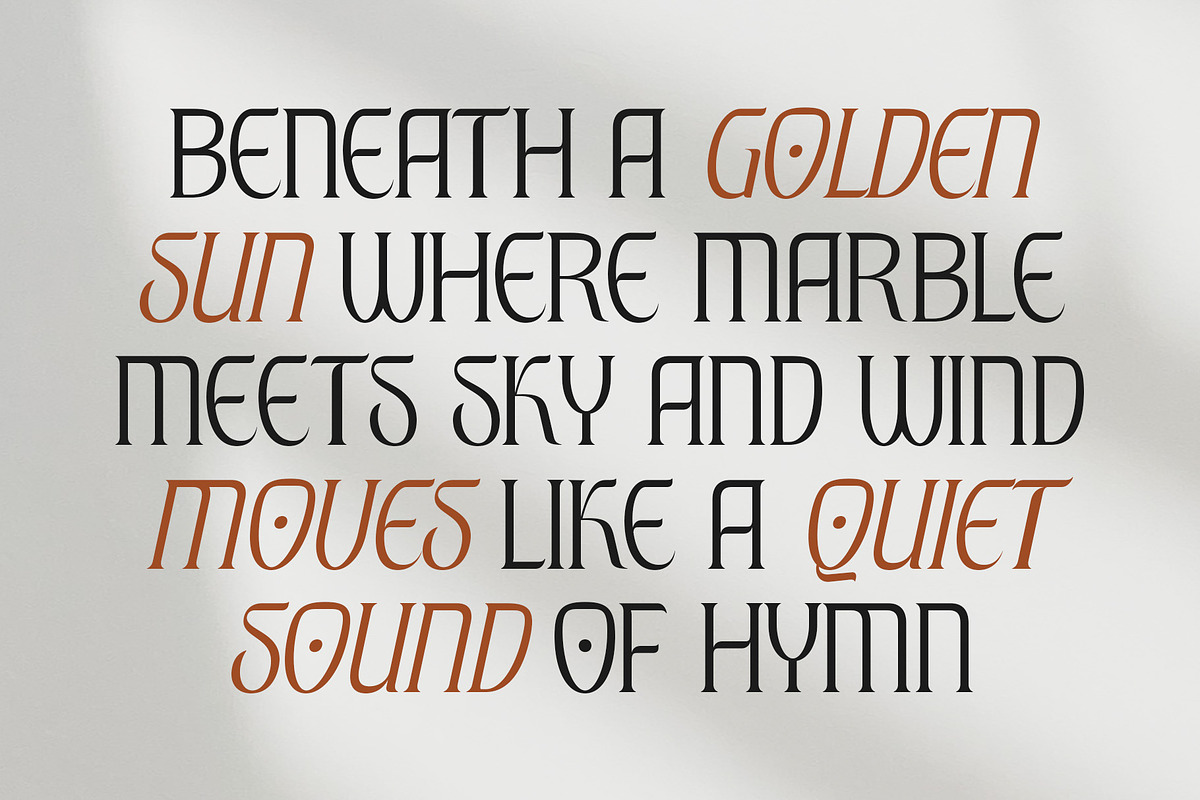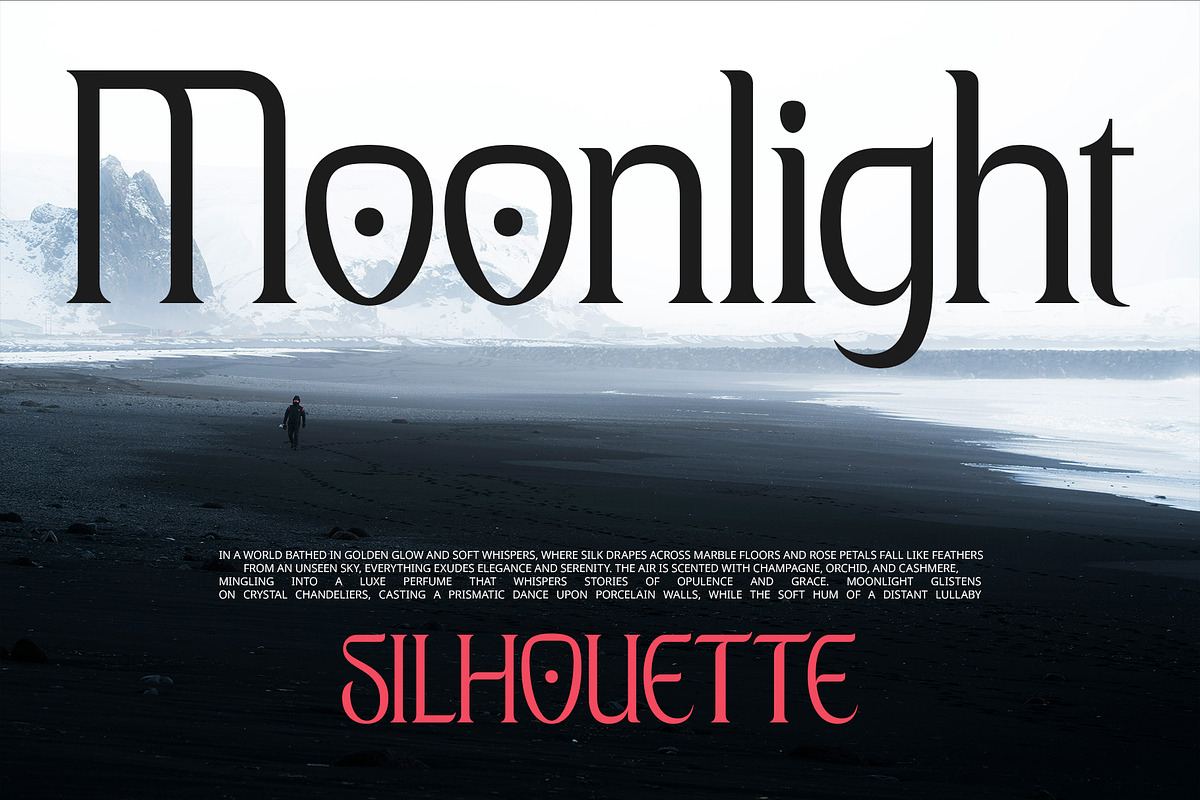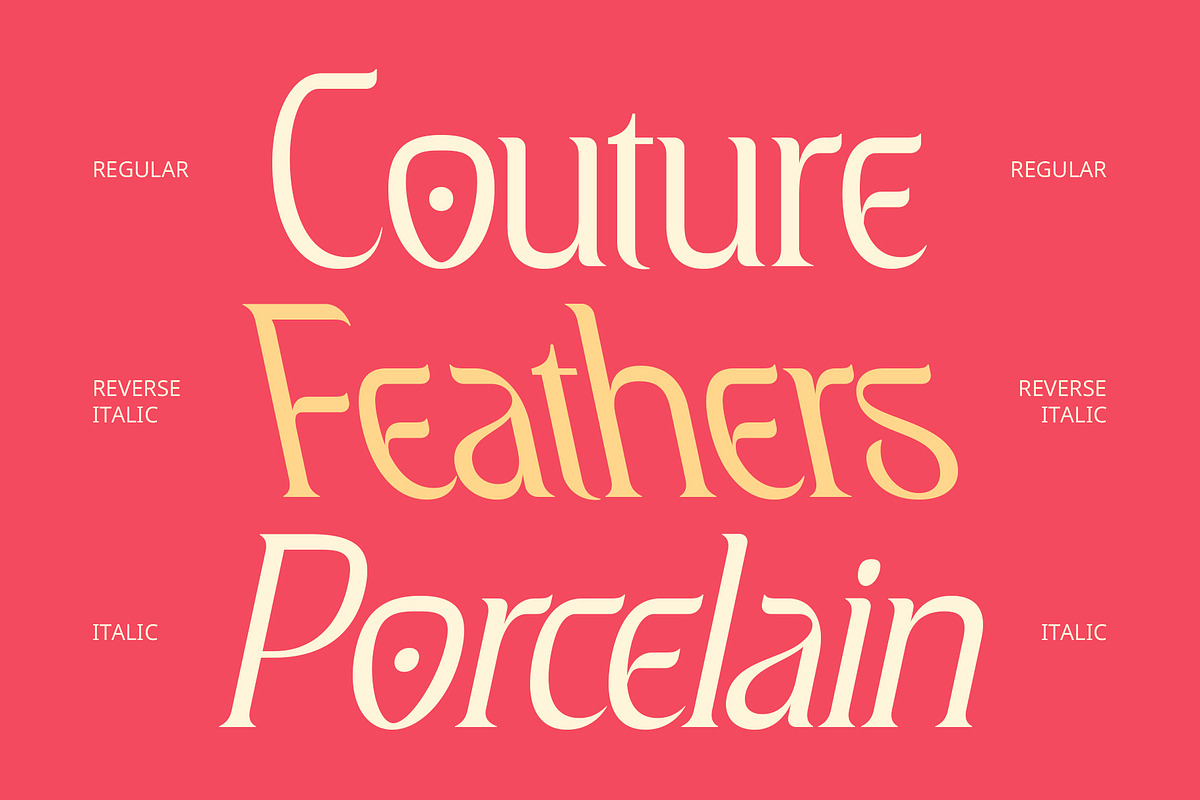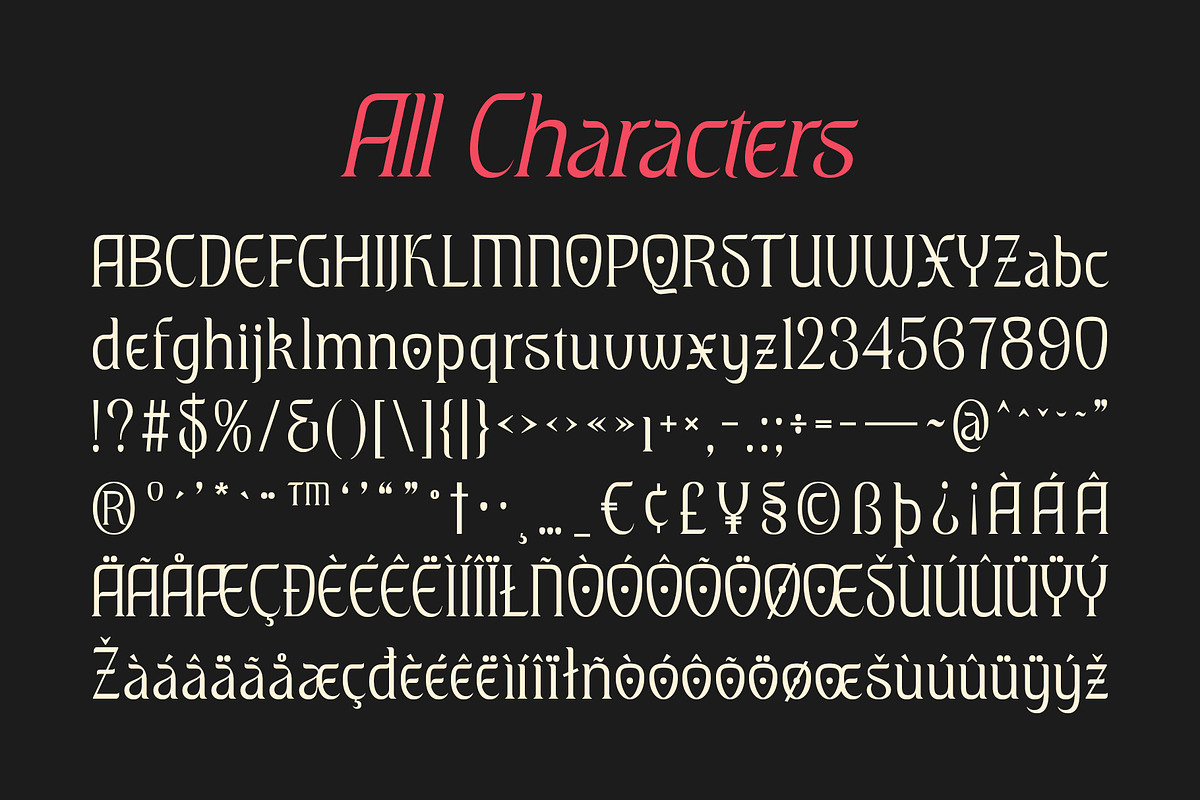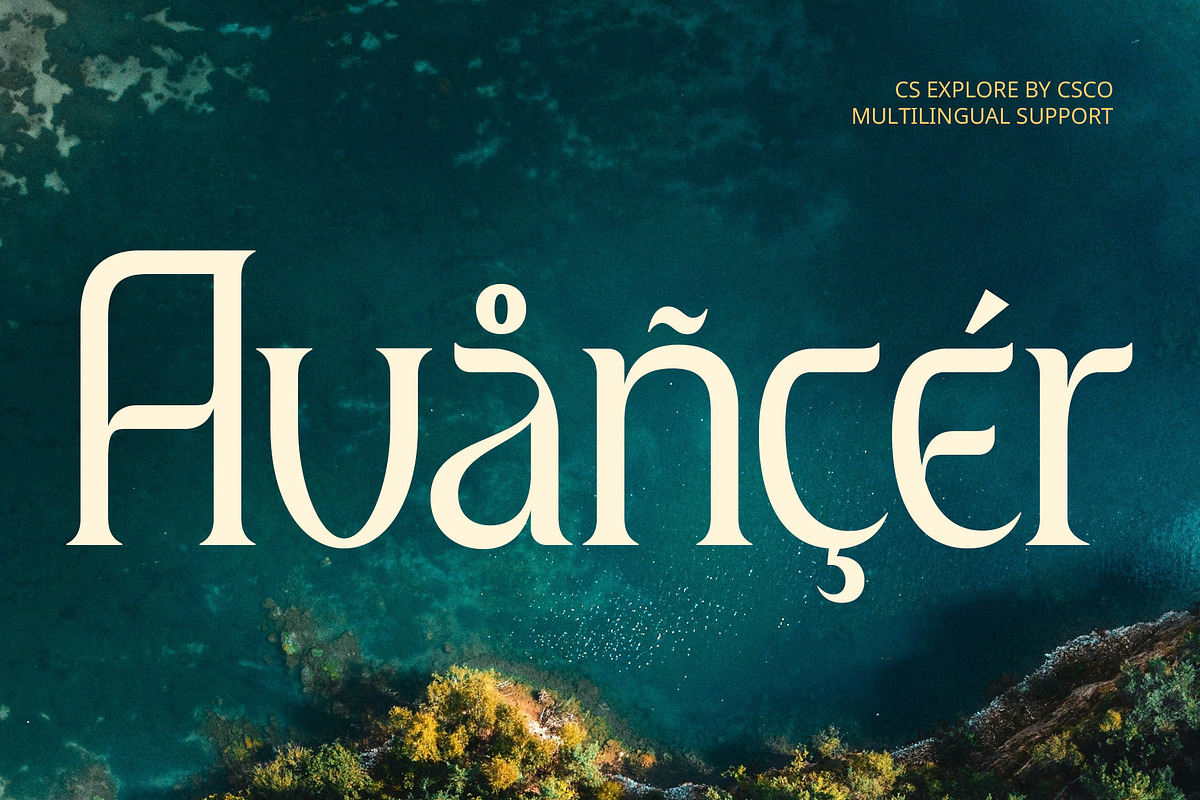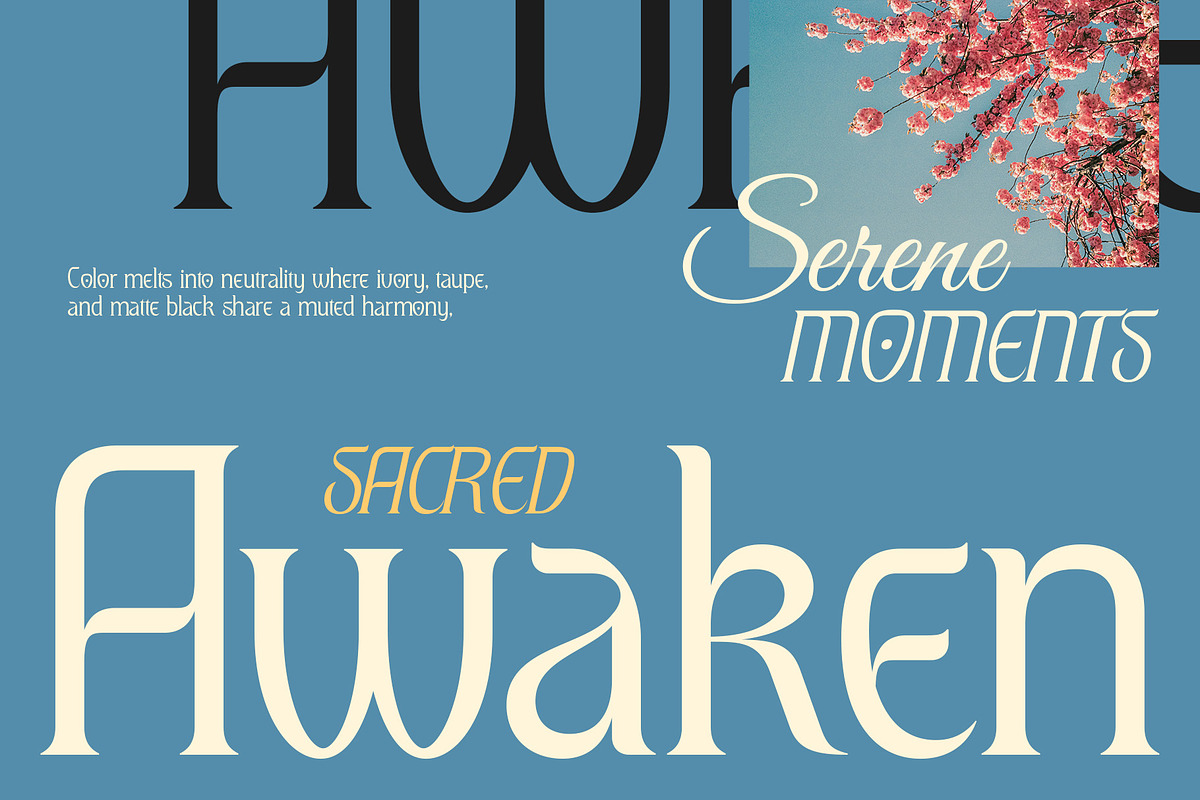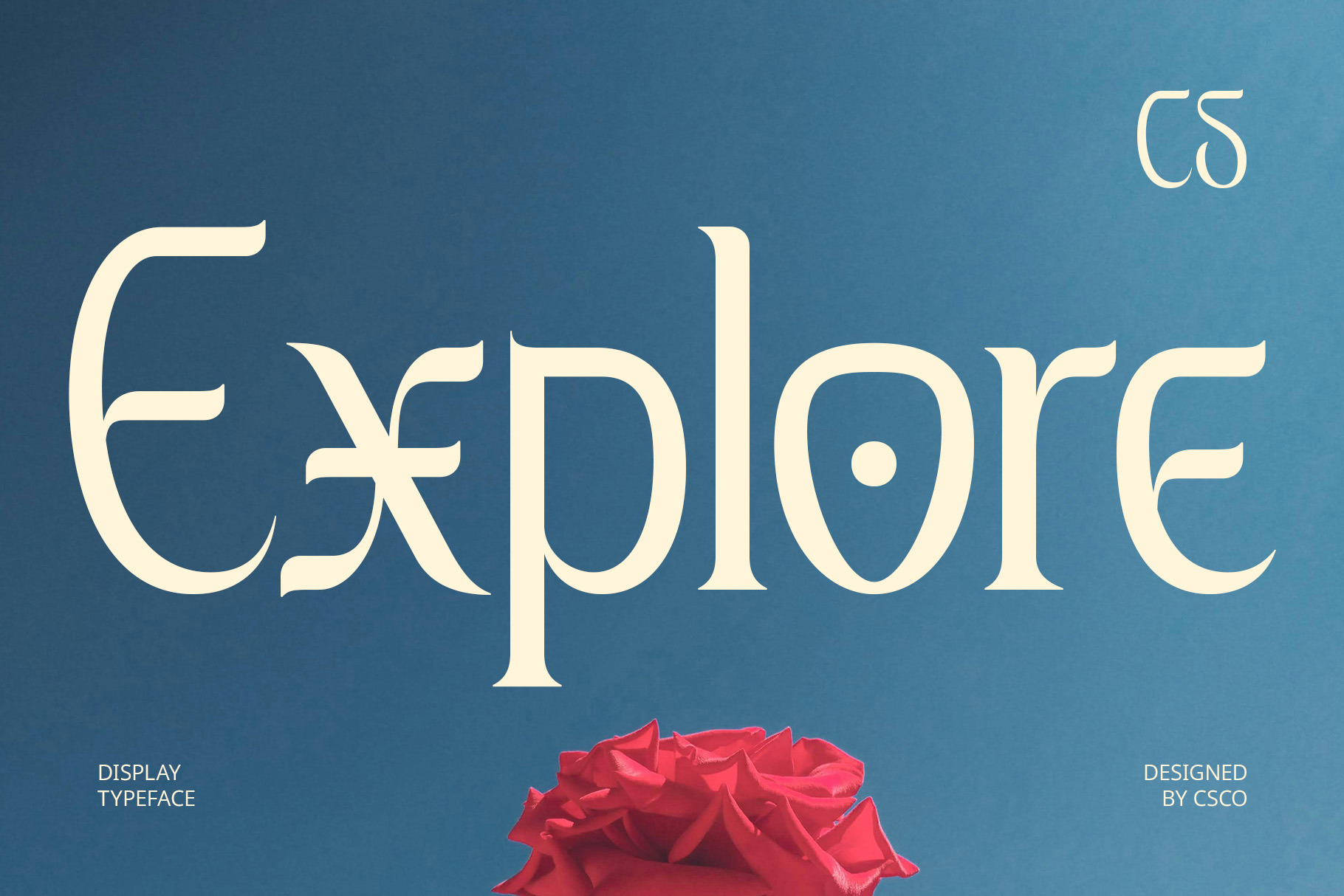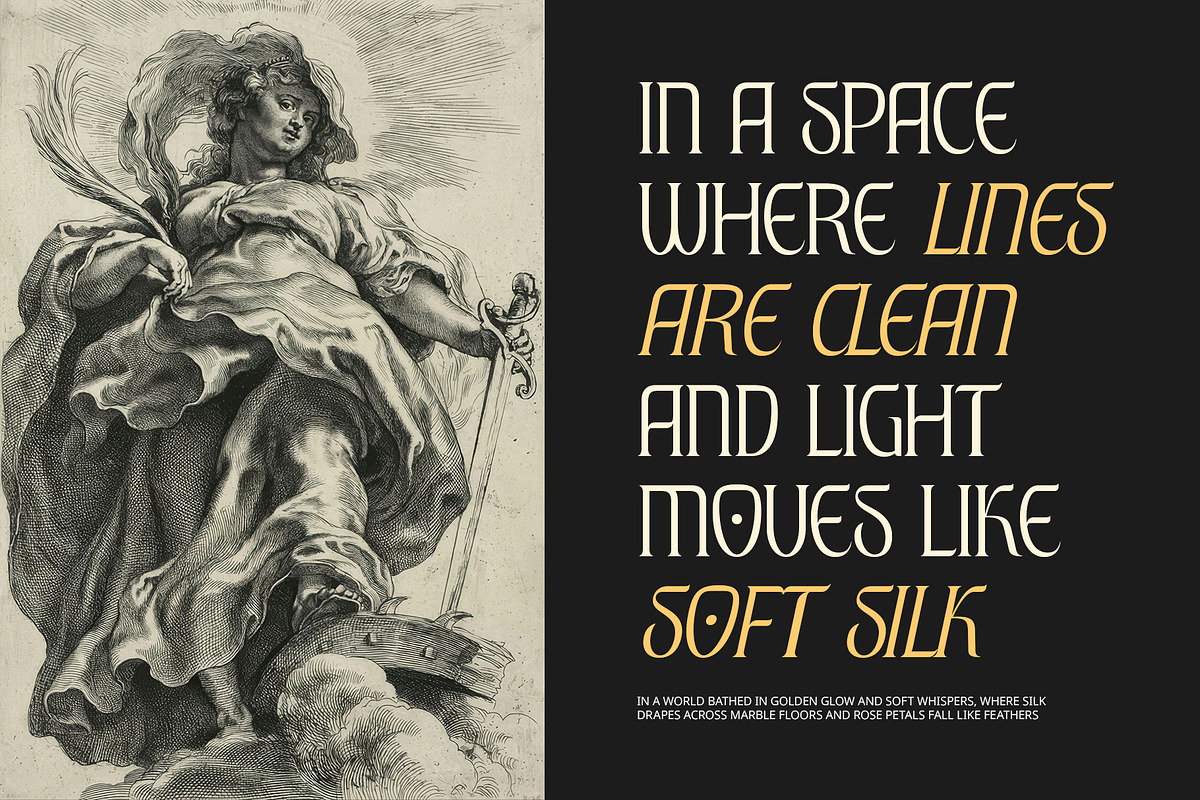
CS Explore – Decorative Font
CS Explore – A Decorative Modern Display Serif Font
Refined Details, Elevated Design CS Explore is a modern display serif font that showcases decorative sophistication through its clean yet intricately detailed letterforms. Featuring a contemporary structure fused with elegant ornamental touches, each character is crafted to exude luxury, artistry, and visual refinement.
Tradition Meets Modern Aesthetics This font strikes a harmonious balance between classic serif elegance and innovative design, blending sharp lines with fluid details. The decorative elements add a unique flair without compromising clarity, making it ideal for high-end visuals that need a distinctive and polished voice.
Perfect for Premium, Creative Projects Whether you’re working on fashion editorials, luxury branding, magazine layouts, invitations, or exclusive packaging, CS Explore adds an unmistakable sense of grace and creativity. Its form is both timeless and current, offering versatility for any project that demands high aesthetic standards.
Make Your Designs Stand Out With its artistic detail and modern execution, CS Explore helps create striking typographic compositions that resonate with elegance and innovation. This font is your go-to choice when the goal is to captivate through sophistication and leave a lasting impression of quality. If you’re looking to make a bold yet graceful statement in your work, CS Explore offers the perfect typographic voice—expressive, polished, and unmistakably high-end.